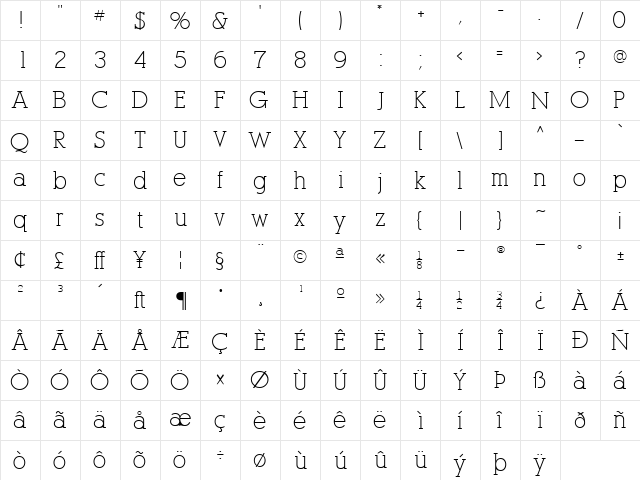
PogoSSK Regular
Design Context for PogoSSK Typeface
PogoSSK takes a measured approach to typography — its balanced proportions and neutral character make it a reliable workhorse for both digital and print work.